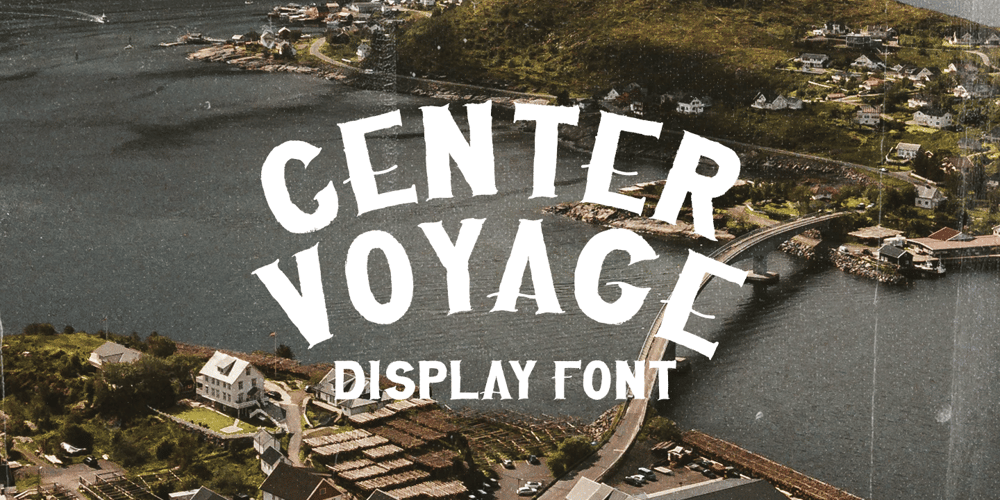
Center Voyage
Center Voyage font
Center Voyage Font Family was designed by Hendry Juanda and published by Letterhend. Center Voyage contains 1 styles and family package options. Introducing, Center Voyage – a Sans Serif typeface. This type of font perfectly made to be applied especially in headlines which is need a standout font, and the other various formal forms such as invitations, labels, logos, magazines, books, greeting / wedding cards, packaging, fashion, make up, stationery, novels, labels or any type of advertising purpose.Features : numbers and punctuation multilingual ligatures PUA encoded We highly recommend using a program that supports OpenType features and Glyphs panels like many of Adobe apps and Corel Draw, so you can see and access all Glyph variations.